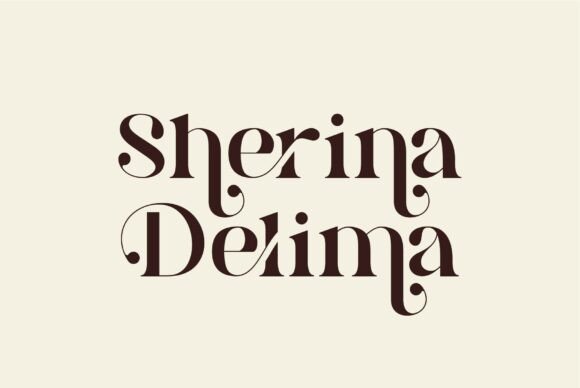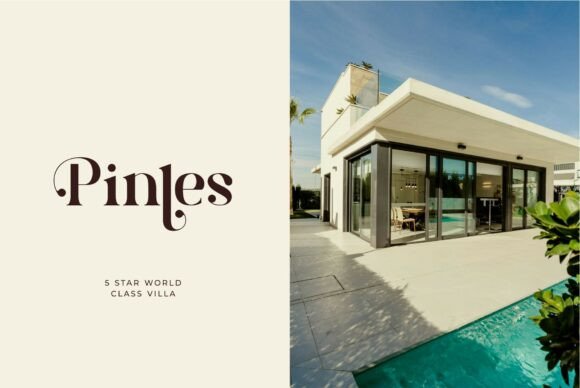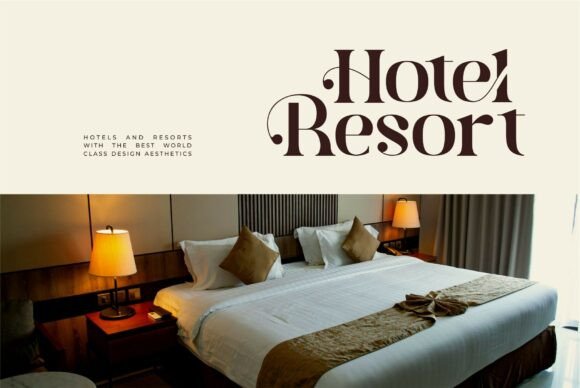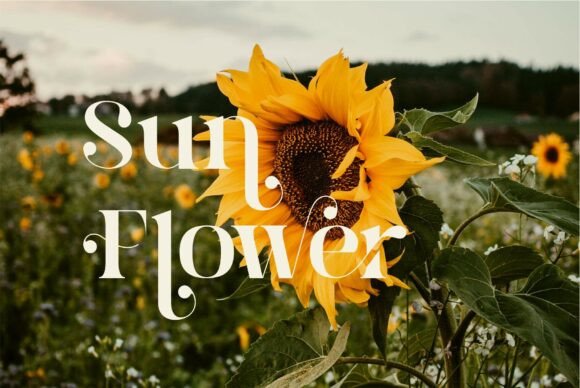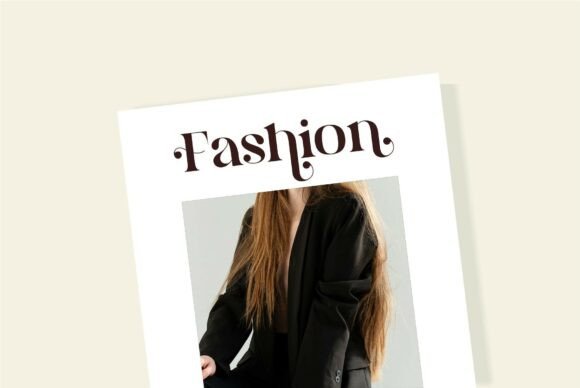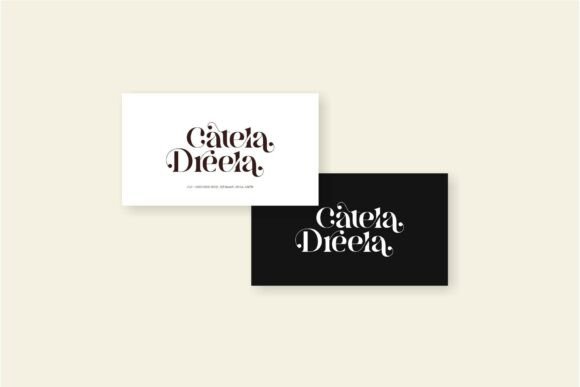
Introducing Brista Font: Elevate Your Designs with Elegance and Sophistication
In the world of typography, a font can make or break a design. For designers and crafters, finding the perfect font that exudes elegance, class, and style can be a daunting task. However, with Brista Font, your search is over. This classy and contemporary serif font has taken the market by storm with its stunning design and stylish ligatures, making it a favorite among designers and brands alike.
The Elegance of Brista Font
Brista Font is designed to perfection, boasting an elegant and classy look that is sure to elevate the quality of your designs. Its serif design adds a touch of sophistication, making it perfect for a wide range of projects, from branding and magazines to books and publications. Whether you’re working on a luxury brand, a cosmetics company, or a high-end boutique, Brista Font is the ideal choice.
Key Features of Brista Font
- Elegant Design: Brista Font features an elegant and classy design that is sure to impress.
- Stylish Ligatures: The font comes with stylish ligatures that add a touch of sophistication to your designs.
- Contemporary Serif: Brista Font is a contemporary serif font that is perfect for modern designs.
- Versatile: The font is versatile and can be used for a wide range of projects, from branding and magazines to books and publications.
Brista Font is the perfect choice for designers and crafters working on a variety of projects, including:
- Brands and Branding: Create a lasting impression with Brista Font, perfect for logos, business cards, and brand names.
- Cosmetics and Beauty: Add a touch of elegance to your cosmetics and beauty brand with Brista Font.
- Boutiques and Fashion: Perfect for high-end boutiques and fashion brands, Brista Font exudes luxury and sophistication.
- Magazines and Publications: Elevate the quality of your magazine or publication with Brista Font.
- Books and Novels: Add a touch of class to your book or novel with Brista Font.
- Social Media and Classy Designs: Use Brista Font to create stunning social media graphics and classy designs.
- Newspapers and Editorials: Perfect for newspapers and editorials, Brista Font is a great choice for any publication.
Why Choose Brista Font?
With so many fonts available in the market, why choose Brista Font? Here are a few reasons:
- Unique Design: Brista Font features a unique and elegant design that sets it apart from other fonts.
- High-Quality: The font is designed to perfection, ensuring high-quality output.
- Easy to Read: Brista Font is easy to read, making it perfect for body text and headlines.
- Versatile: The font is versatile and can be used for a wide range of projects.
In conclusion, Brista Font is a classy and contemporary serif font that is perfect for designers and crafters looking to elevate the quality of their designs. With its elegant design, stylish ligatures, and versatility, Brista Font is the ideal choice for a wide range of projects. Whether you’re working on a luxury brand, a cosmetics company, or a high-end boutique, Brista Font is sure to impress. So why wait? Try Brista Font today and take your designs to the next level!